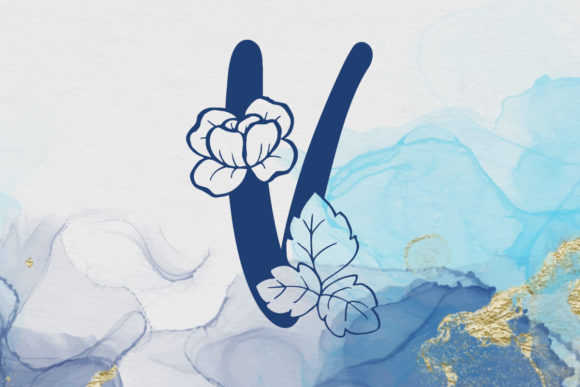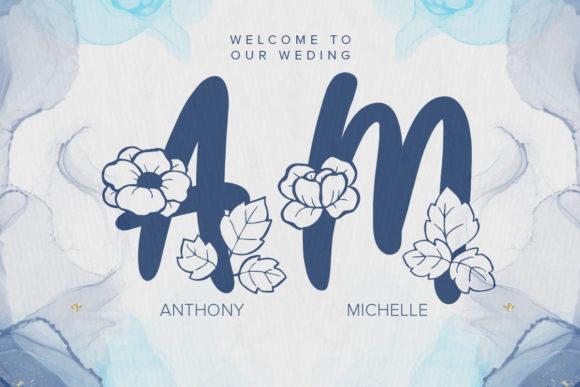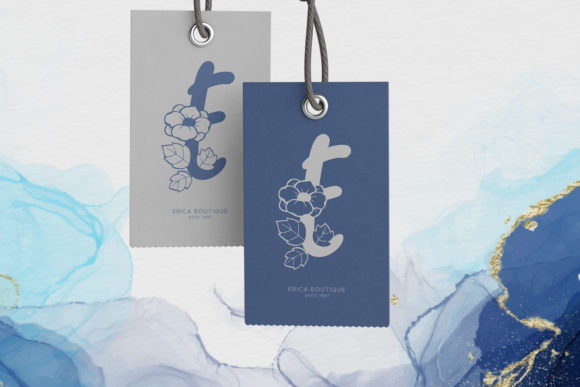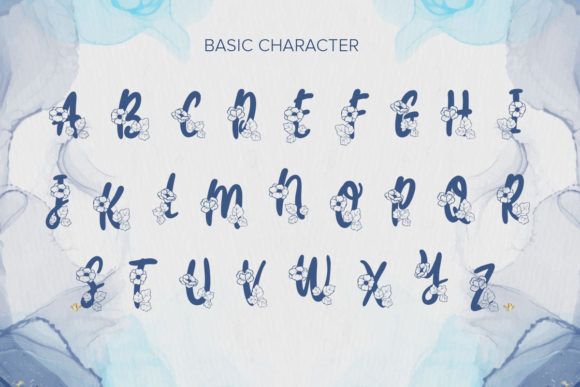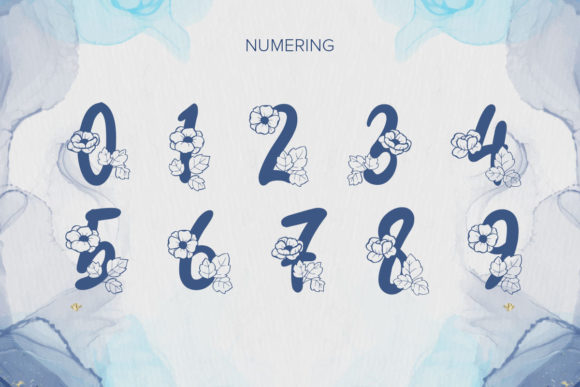
The Magic of Carolina Monogram Font: Elevate Your Designs with Lovely Flowers
I’ll never forget the moment I stumbled upon the Carolina Monogram Font while working on a custom wedding invitation project. My client had a clear vision: elegant, whimsical, and full of floral charm. As I scrolled through font libraries, Carolina Monogram caught my eye with its beautiful, intricate flower designs. It was love at first sight! ✨ In this article, I’ll share my experience with this lovely font, its features, and how to make the most of it in your creative projects.
- Unique and elegant floral designs that add a touch of sophistication to any project ✅
- Lovely OpenType features, including glyphs and stylistic alternates, for endless creative possibilities 🌼
- Perfect for a variety of design applications, from wedding invitations to branding and packaging 📦
- Easy to read and works well in both digital and print formats 📊
- Some users might find the font a bit limited in terms of bold or dramatic variations ⚠️
- May require some experimentation to get the perfect combination of glyphs and alternates 📝
The Story Behind Carolina Monogram: A Designer Inspiration
Carolina Monogram was designed by a talented type designer who drew inspiration from traditional floral patterns and elegant script fonts. The goal was to create a unique, eye-catching font that would add a touch of sophistication to any design project. With its beautiful flower designs and OpenType features, Carolina Monogram has become a popular choice among designers and crafters. 🌼
| Font Name | Carolina Monogram Font |
| Author | Monogram Lovers |
Q: What makes Carolina Monogram font unique?
A: Carolina Monogram’s unique feature is its beautiful floral designs, which add a touch of elegance and sophistication to any project. 🌼
Q: Is Carolina Monogram easy to read?
A: Yes, Carolina Monogram is designed to be easy to read, making it perfect for both digital and print formats. 📊